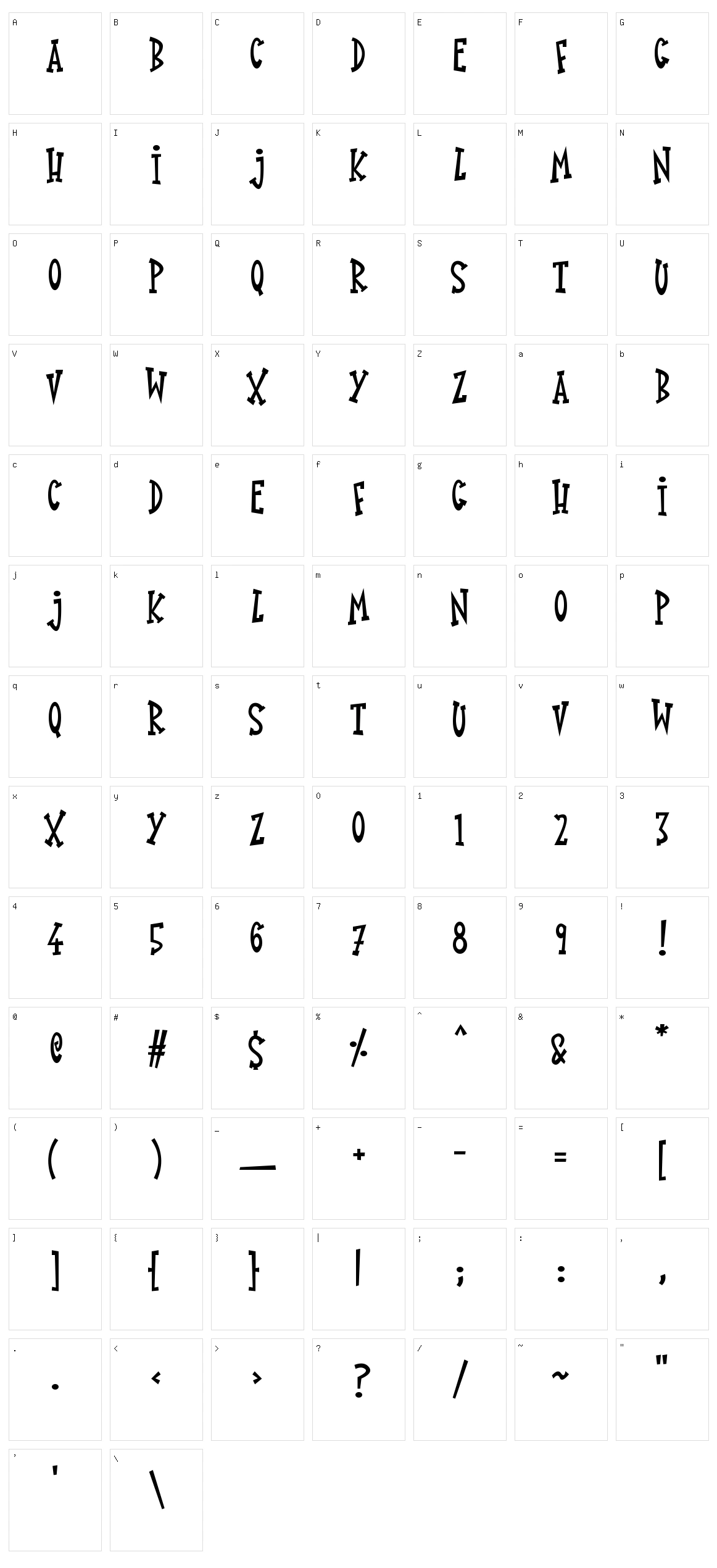
The free font Knick Knack is carefully designed by Hawtpixel, showcasing a thoughtful balance of creativity and usability and falls under the Cartoon font style. When you download the ZIP file, it contains only 189.9 KB of font files, making it lightweight and quick to download. Please review the license details below to understand permitted usage and distribution rights. If license information is not available, we recommend using this font for personal projects only or contacting the author directly for commercial usage permissions.